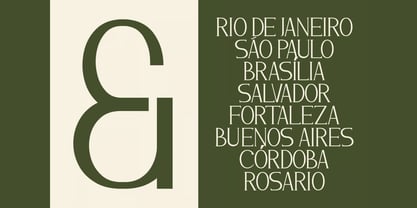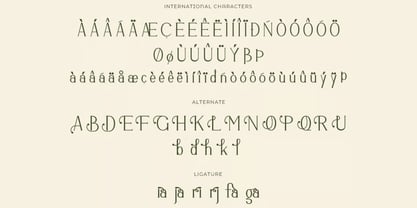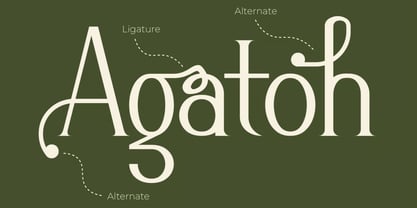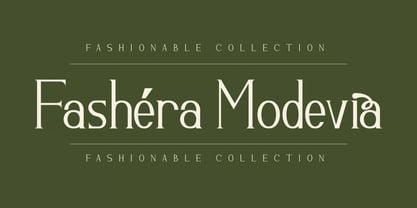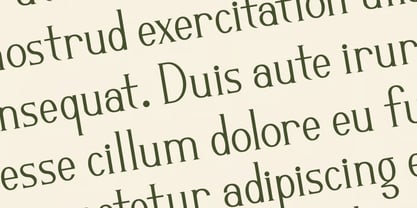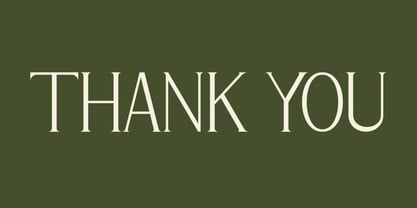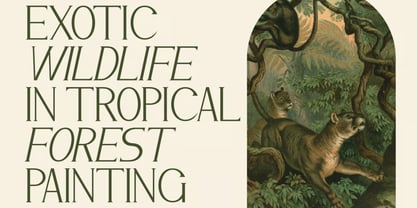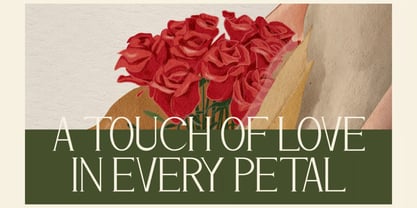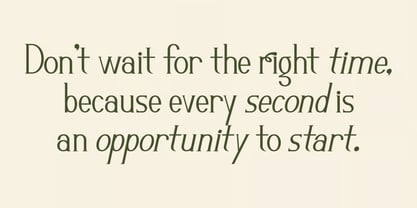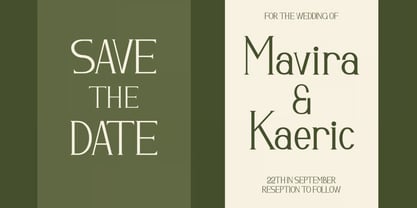
Odrifa
by Hasnat Studio
The Odrifa Font Family was designed by Hasnat Khan and published by Hasnat Studio. Odrifa contains 1 styles. More about this family
Odrifa is a premium serif typeface designed for creators seeking a distinctive, luxurious, and professional aesthetic in their projects. Featuring refined strokes, elegant proportions, and a sophisticated structure, Odrifa adds a polished premium feel to every design, making it ideal for branding, editorial layouts, packaging, logos, and high-quality visual communication. Whether for digital platforms or print media, Odrifa offers versatility, clarity, and timeless charm. Its ligatures, alternates, and multilingual support provide creative flexibility while maintaining a consistent and upscale style. ✿ Key Features: Premium Serif Letterforms: Elegant, distinctive, and crafted for high-end design. Alternates & Ligatures: Customizable styling options for unique typography. PUA Encoded Characters: Fully accessible without special software. Multilingual Support: Supports 65 languages, including Afrikaans, Albanian, Catalan, Danish, Dutch, Filipino, French, German, Indonesian, Italian, Norwegian, Portuguese, Spanish, Swedish, Zulu, and more. Versatile Compatibility: Works seamlessly in Adobe Illustrator, Photoshop, InDesign, and Microsoft Word. Easy Installation: Simple setup for both PC & Mac users. ✿ Perfect For: Branding & Logo Design: Create premium, memorable brand identities. Editorial & Magazine Layouts: Elevate headlines, subheads, and refined typography. Packaging & Product Design: Ideal for luxury labels and stylish product visuals. Web & Digital Design: Crisp and professional for websites and online media. Invitations, Posters & Stationery: Add an elegant, distinctive touch to printed materials. Marketing & Social Media: Enhance promotional designs with a polished, premium vibe. Elevate your creative work with Odrifa — a premium serif typeface that combines luxury, versatility, and elegant craftsmanship for standout design.